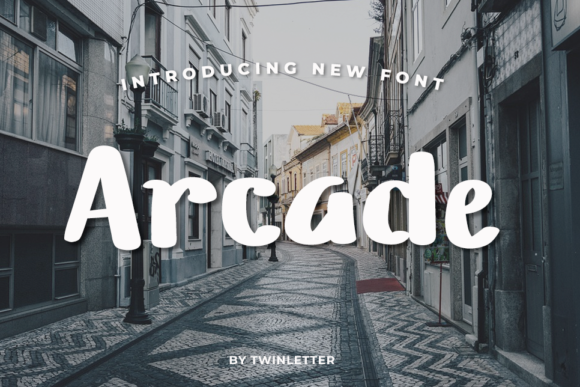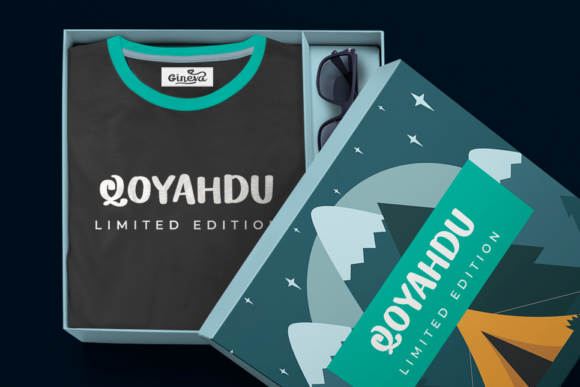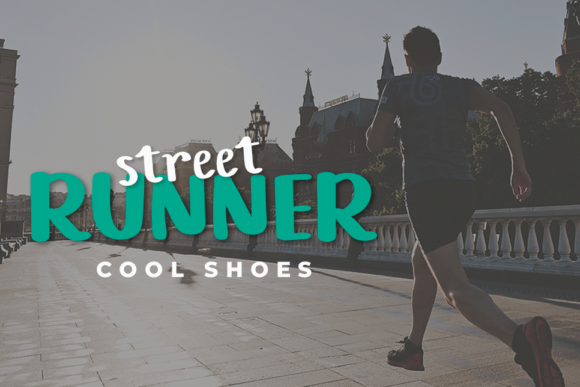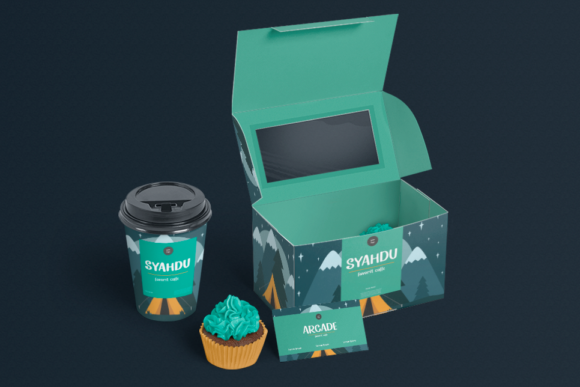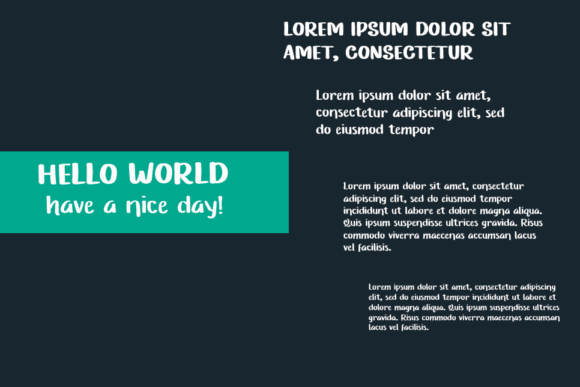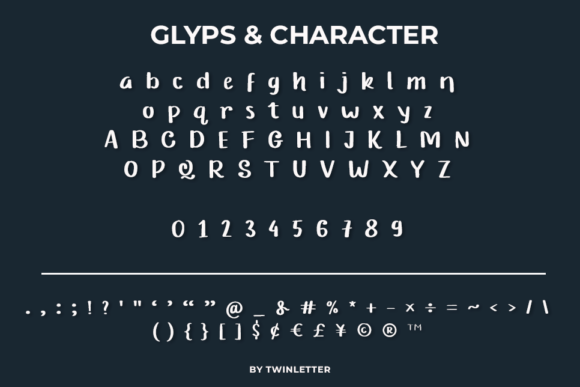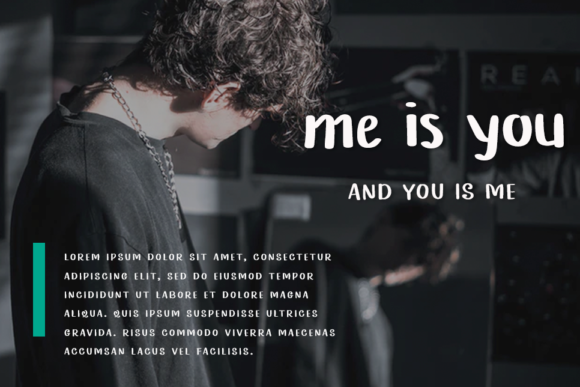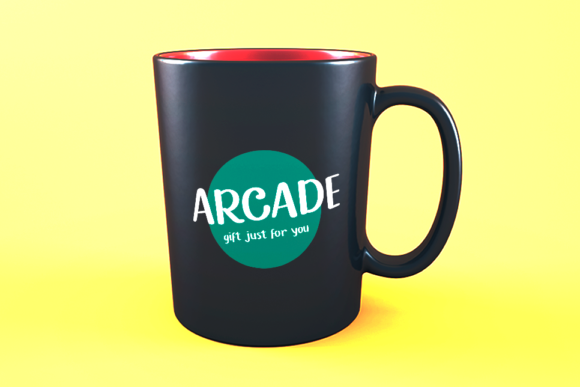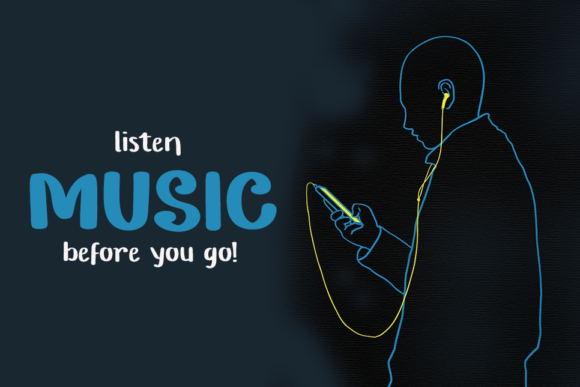
Arcade Font
About Arcade Font
Arcade is a casual, fun handwritten font. Clean and a little bit quirky, this font is the perfect fit for all of your logos, branding, social media, and crafty DIY projects